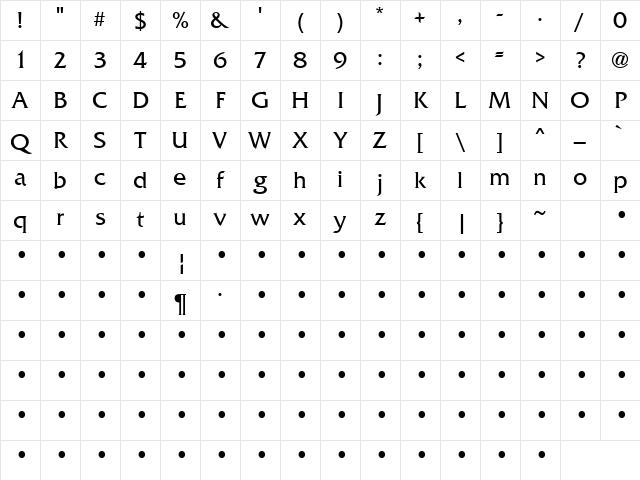
Keep Talking 5 Regular
Design Context for Keep Talking 5
Keep Talking 5 is a composed and adaptable typeface that performs quietly and consistently across a wide range of design contexts.
Pro Tip: Use Keep Talking 5 in both headline and body roles to test its range before committing to a single application.